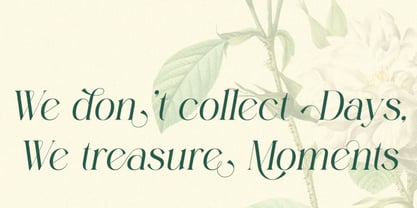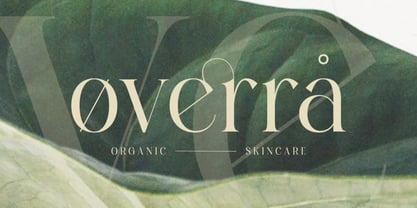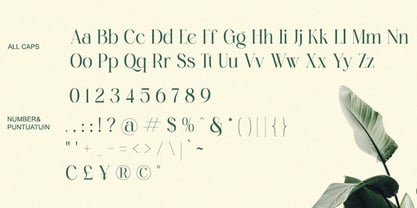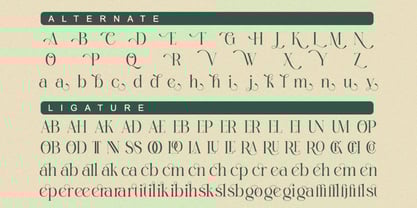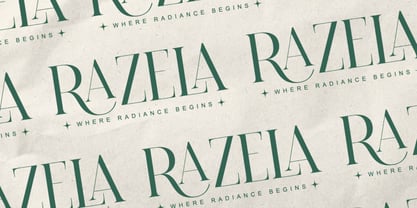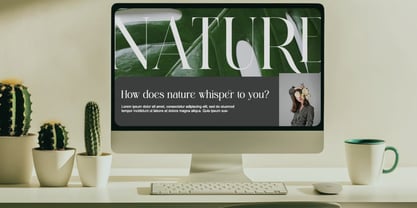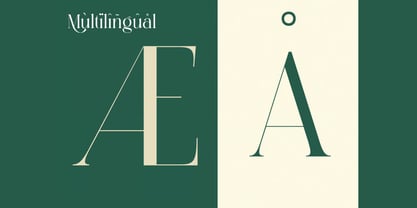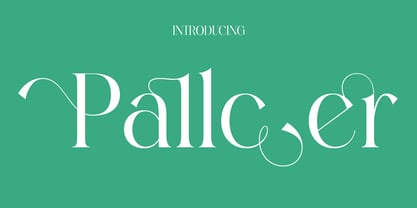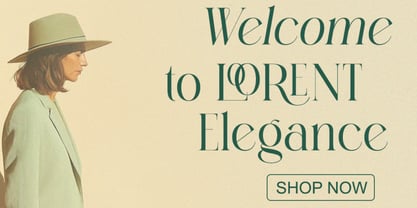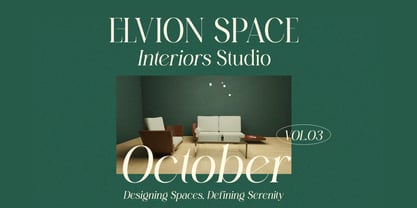
Pallcer
Die Schriftfamilie Pallcer wurde von Hasnat Khan entworfen und von Hasnat Studio veröffentlicht. Pallcer enthält 1 Stile. Mehr über diese Familie
Pallcer is a modern serif display font that seamlessly blends simplicity with natural elegance. Designed with clean shapes, balanced contrast, and subtle stylistic details, Pallcer brings a refined, contemporary tone to every project. Its organic curves and sophisticated ligatures make it an ideal choice for designers who value clarity, style, and high-end visual impact. Whether you're crafting branding, packaging, editorial layouts, or sophisticated logos, Pallcer delivers a polished and professional aesthetic that stands out across both digital and print formats. ✿ Key Features: - Regular & Italic Styles: Two versatile styles for dynamic and expressive typography. - Uppercase & Lowercase Letters: Full alphabet set designed with modern, balanced serif forms. - Alternates & Ligatures: Add variety and elegance with refined stylistic options. - Multilingual Support: Includes accented characters for extended language coverage. ✿ Perfect For: - Branding & Logo Design: Create modern, sophisticated, and memorable brand identities. - Packaging Design: Add elegance and clarity to luxury, beauty, or organic product packaging. - Editorial Headlines: Ideal for magazines, lookbooks, and stylish typographic layouts. - Web & Social Media Graphics: Enhance your content with clean and polished display typography. Bring refined sophistication to your creative work with Pallcer — a modern serif display typeface designed for elegance, readability, and timeless design appeal.